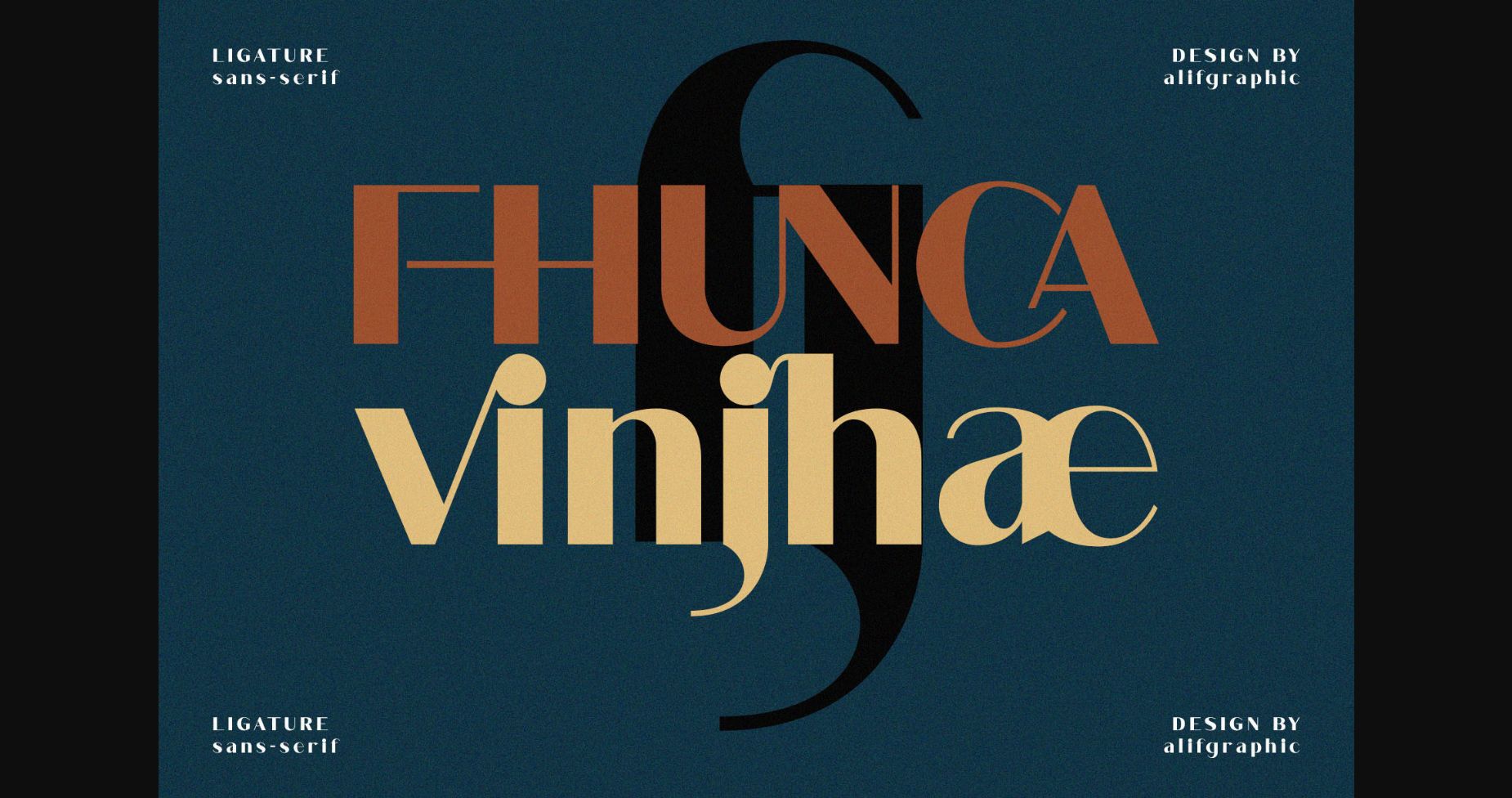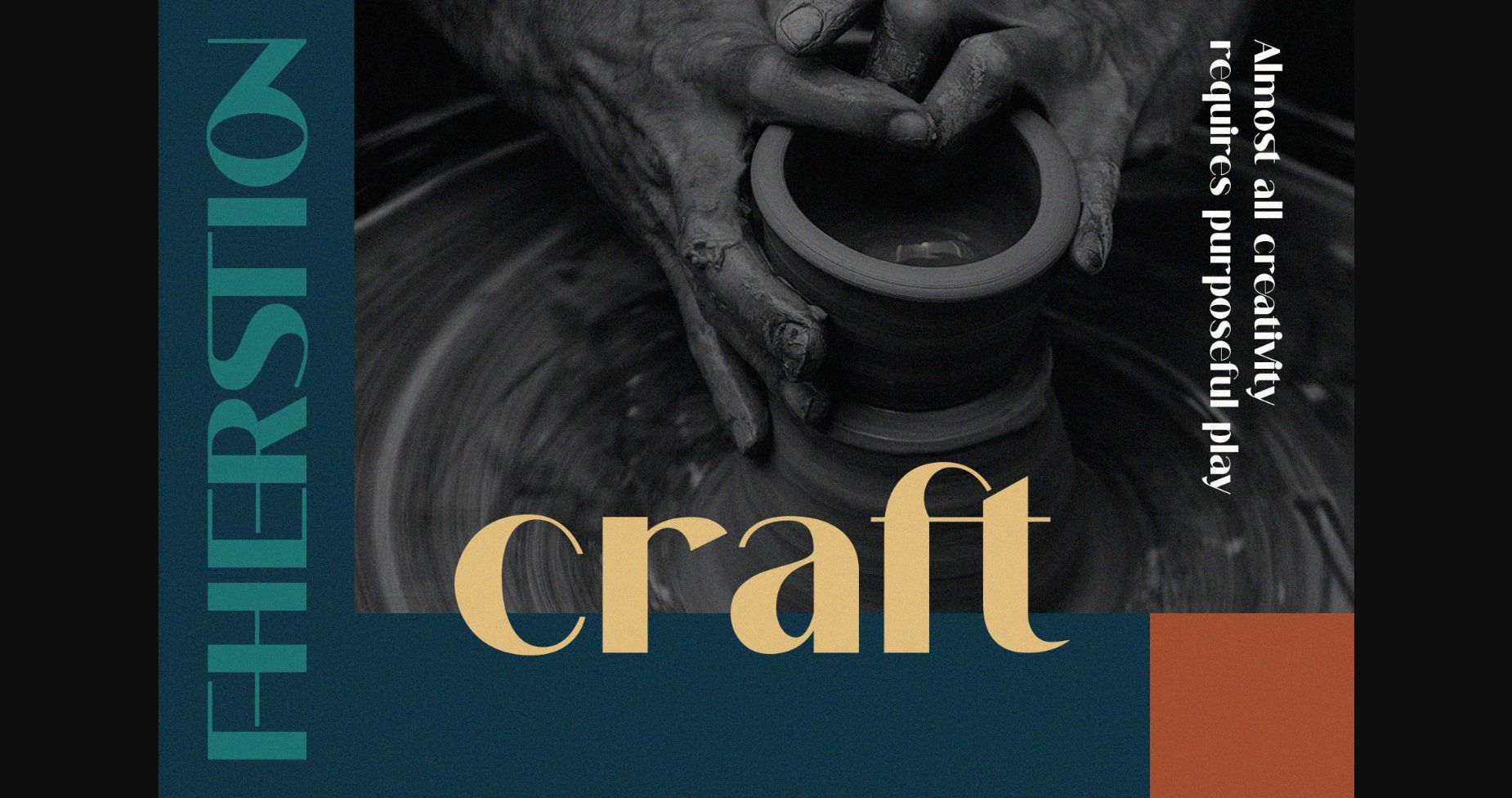
About Fhunca Vinjhae Font
A beautiful series of letters is encapsulated in this ‘Fhunca Vinjhae’ font.
Neat lettering is perfect for writing needs that are modern and pleasing to the eye, there is a Modern impression but still looks Elegant when used for writing.